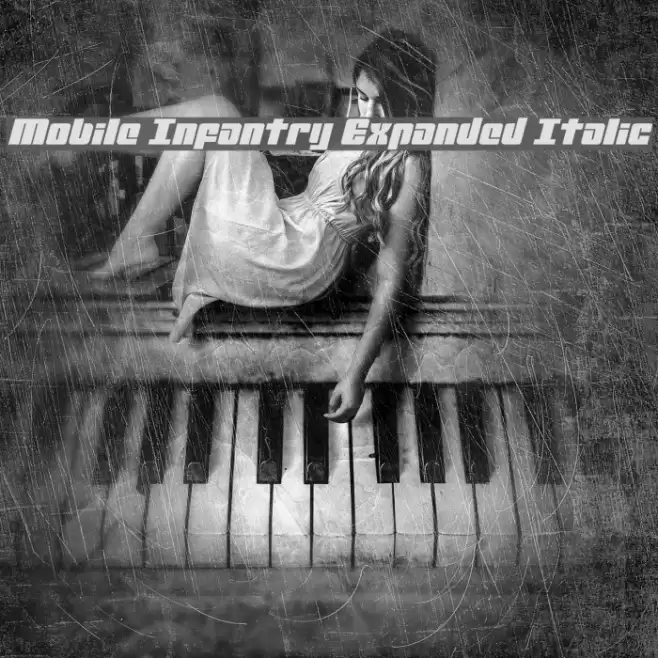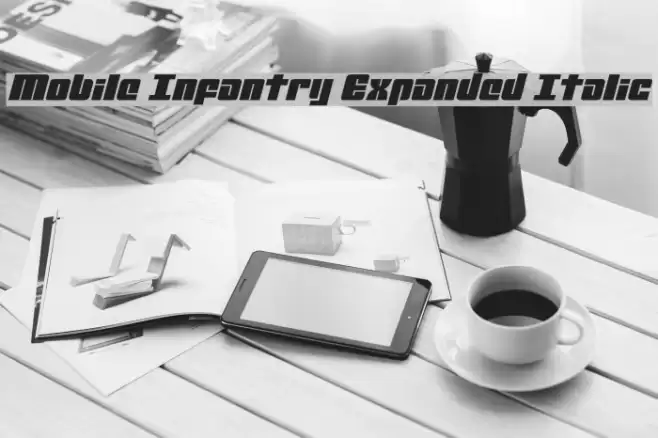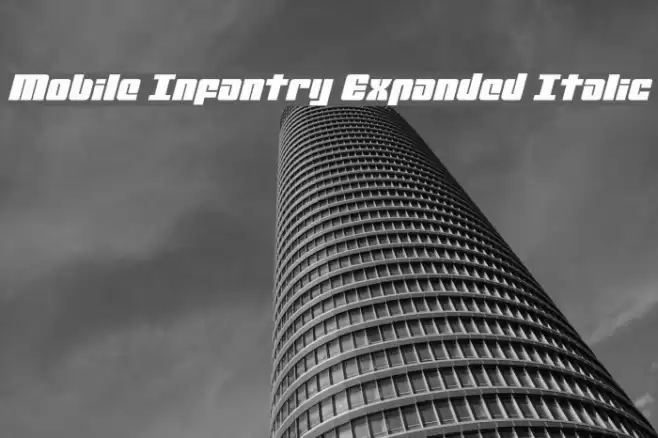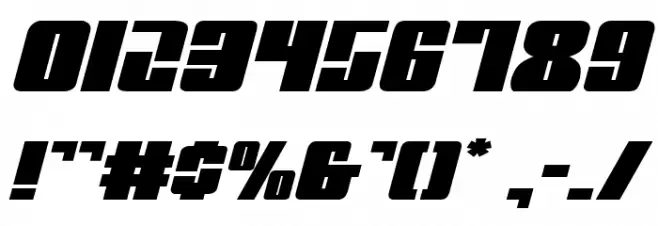
Mobile Infantry Expanded Italic Font
Mobile Infantry Expanded Italic Description
This font features a bold, italicized style with an expanded width, giving it a strong and commanding presence. The characters are designed with a futuristic and military-inspired aesthetic, characterized by sharp angles and geometric shapes. The uppercase and lowercase letters maintain a consistent style, with a slight slant that adds dynamism and movement. The numbers and special characters are equally bold and stylized, ensuring uniformity across all text elements. This font is ideal for projects that require a modern and assertive look, such as posters, logos, and branding materials.
A bold, expanded, and italicized font with a futuristic, military-inspired design from Uncategorized fonts.
- Proposed Projects: Ideal for posters, logos, branding, and any project needing a strong, modern aesthetic.